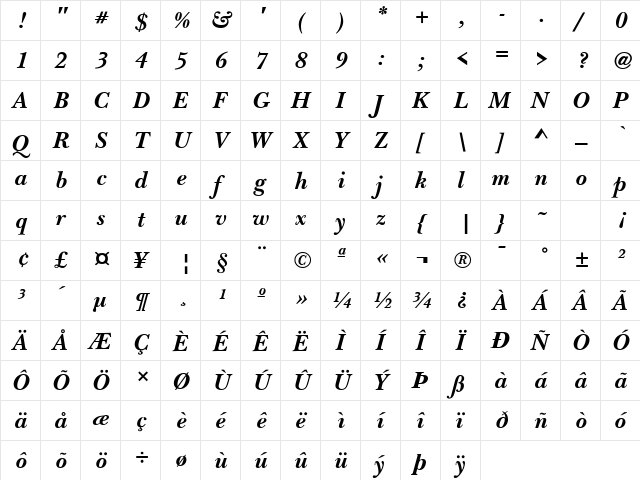
Baskerville Handcut BOLDITALIC Font Preview
Design Context for Baskerville Handcut Typeface
Baskerville Handcut flows with the natural rhythm of handwritten lettering, making it ideal for designs that call for warmth and personal expression. The heavy weight commands attention and anchors typographic hierarchies.